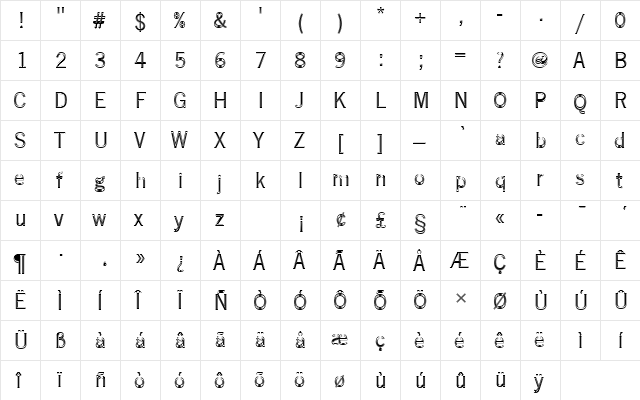
NewsGotTRegIn1 Regular
Design Context for NewsGotTRegIn1 Typeface
NewsGotTRegIn1 is a composed and adaptable typeface that performs quietly and consistently across a wide range of design contexts.